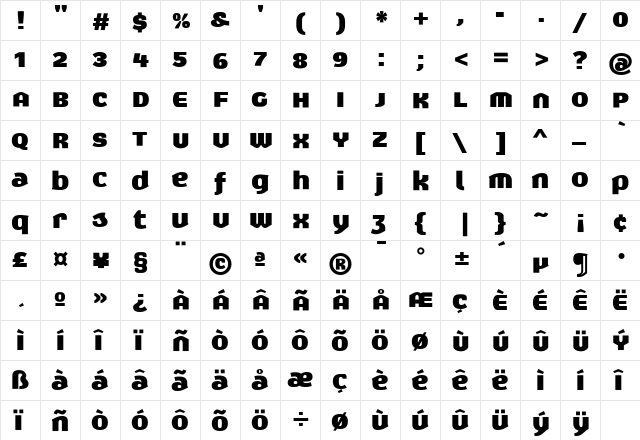
Exert Regular
Design Context for Exert Typeface
Exert offers clean, dependable letterforms without strong stylistic allegiance, making it a practical choice for designers who need flexibility.
Pro Tip: Pair Exert with a font of contrasting weight or personality to build a more expressive typographic hierarchy.